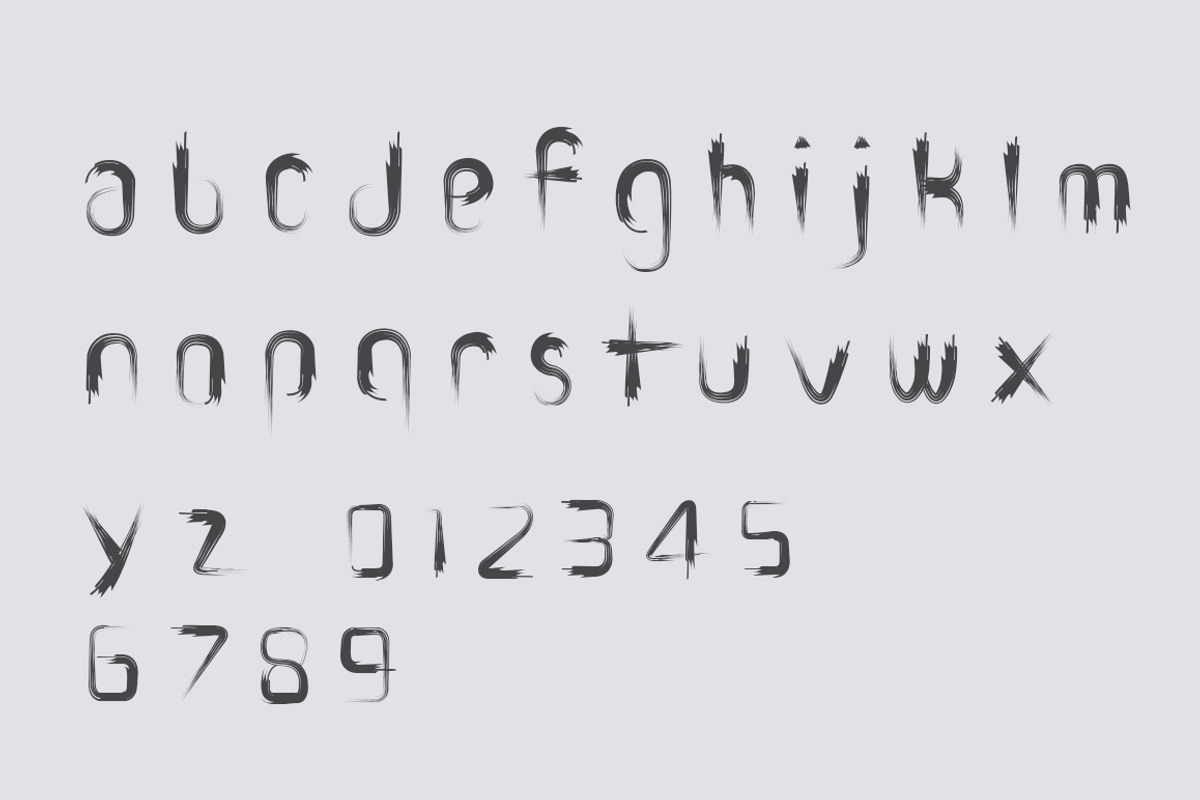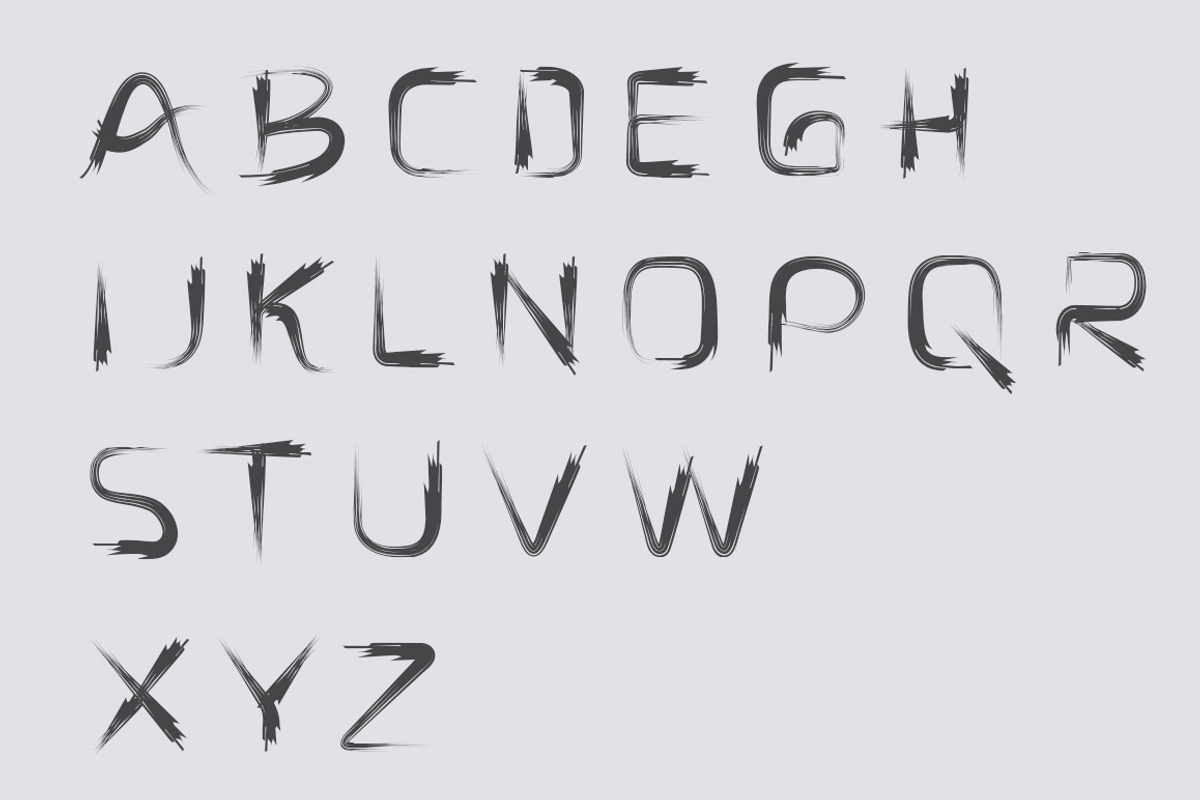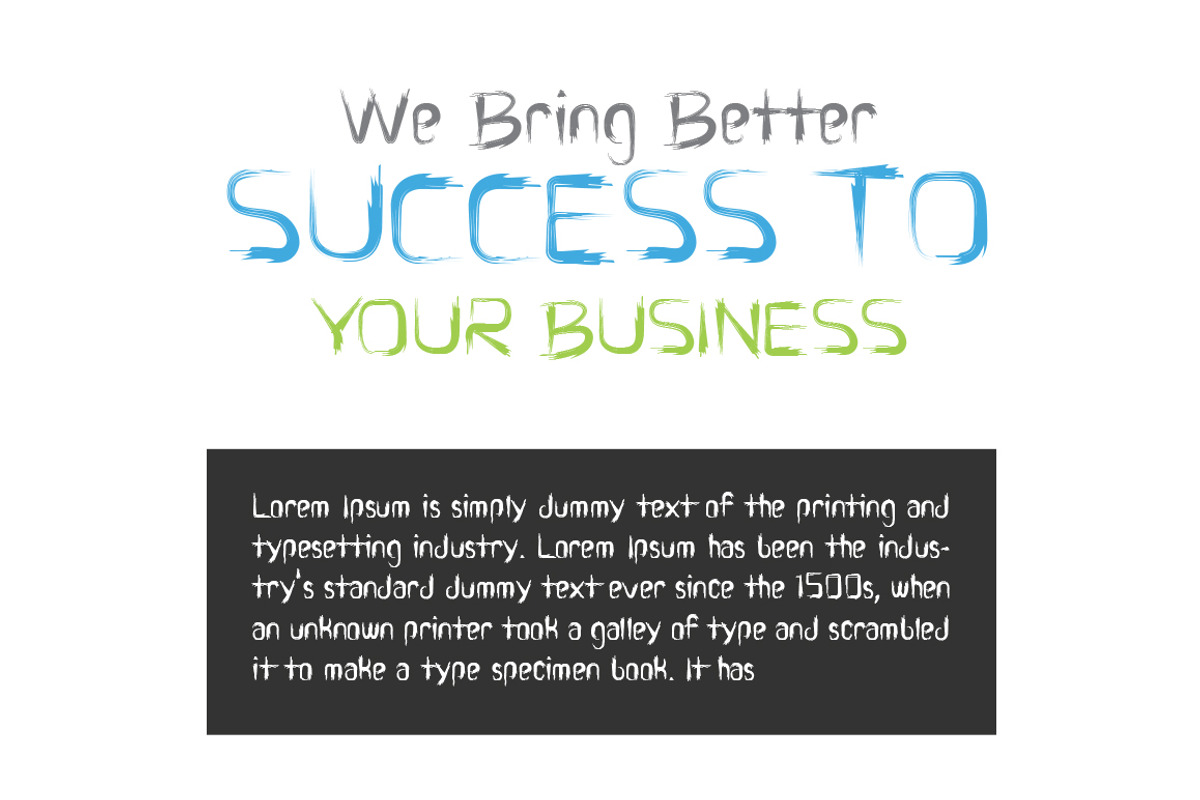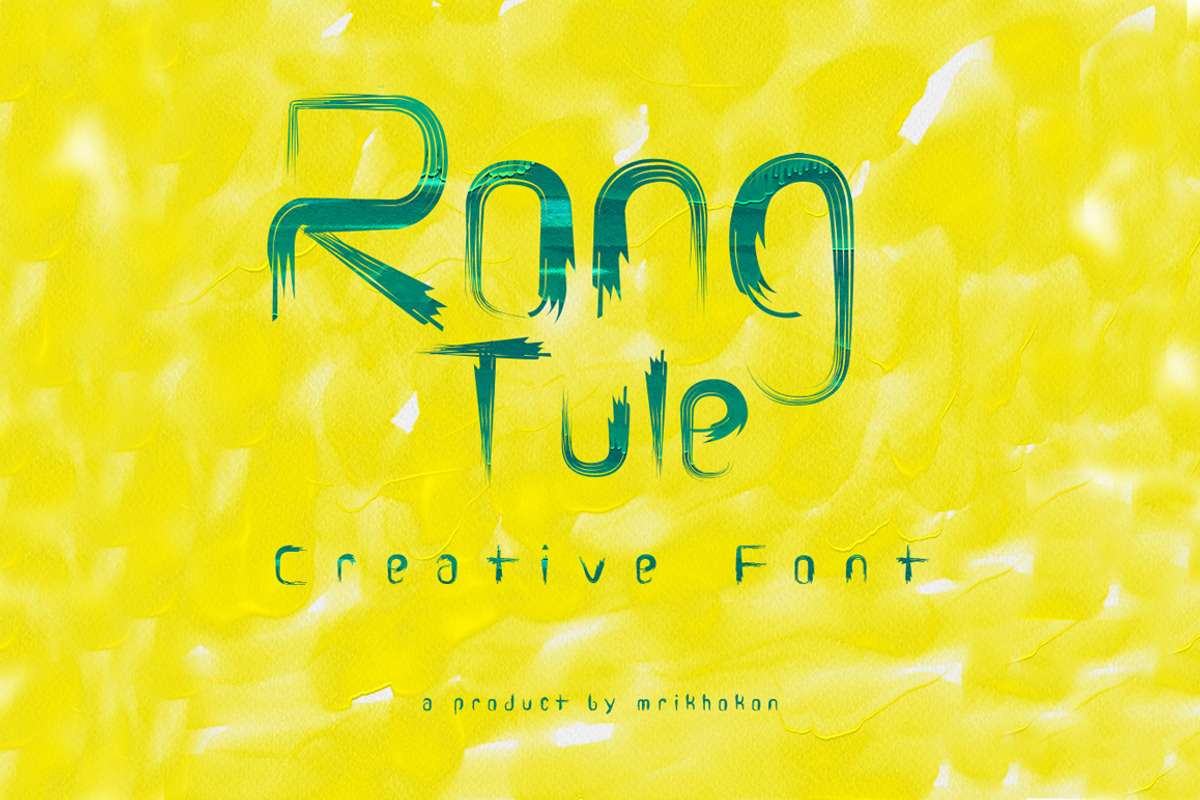
Rong Tule Font
Rong Tule Font by MRI STUDIO is a font selected for branding, posters, packaging, typography.
Why Rong Tule Font is worth a look
Rong Tule Font by MRI STUDIO fits naturally into Branding, posters, packaging, typography.